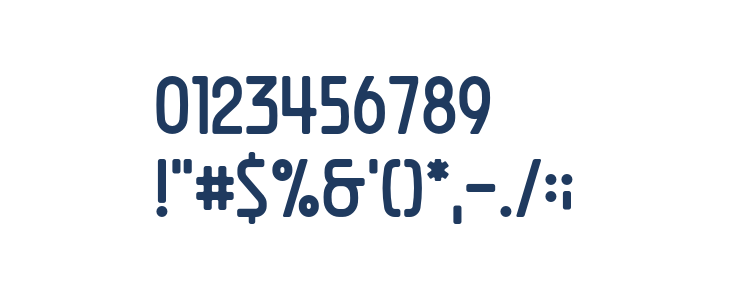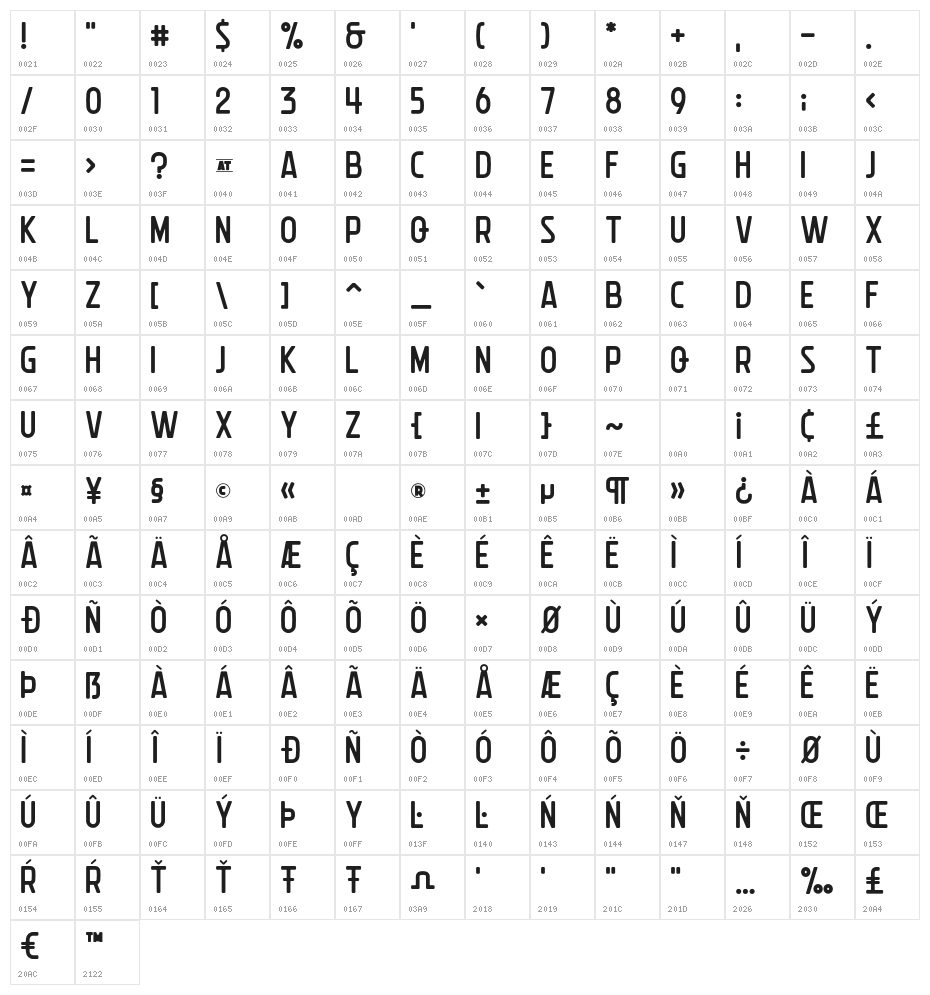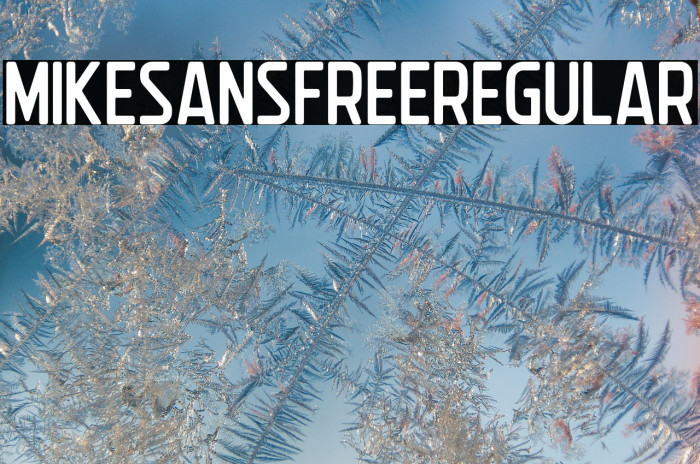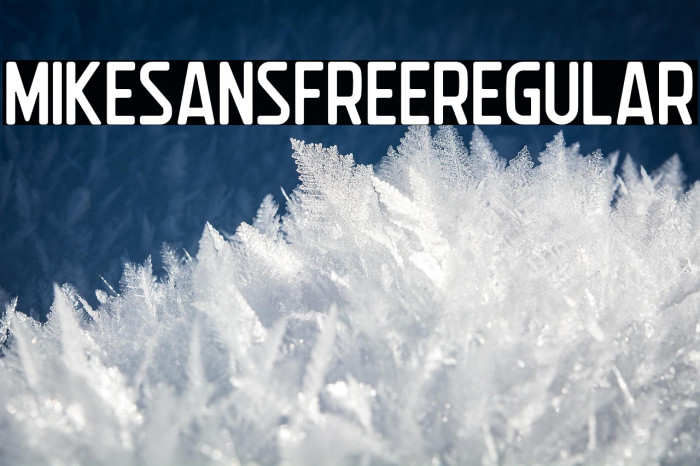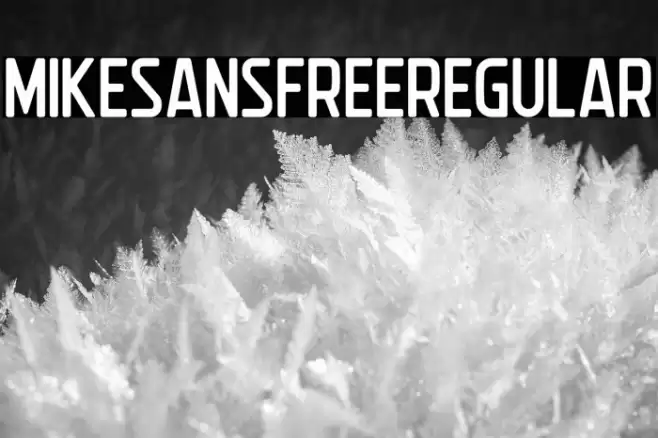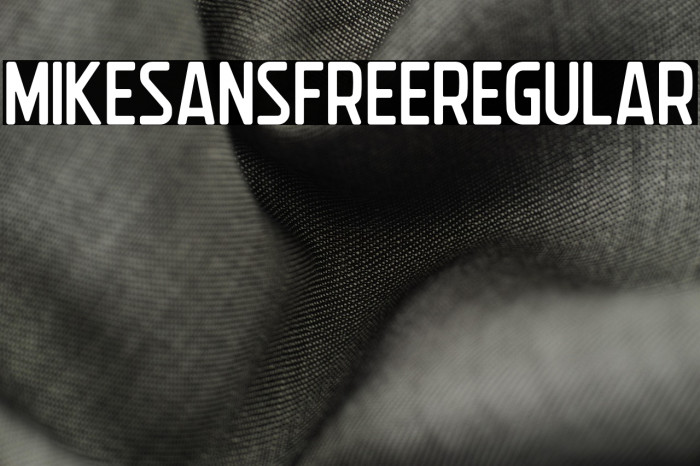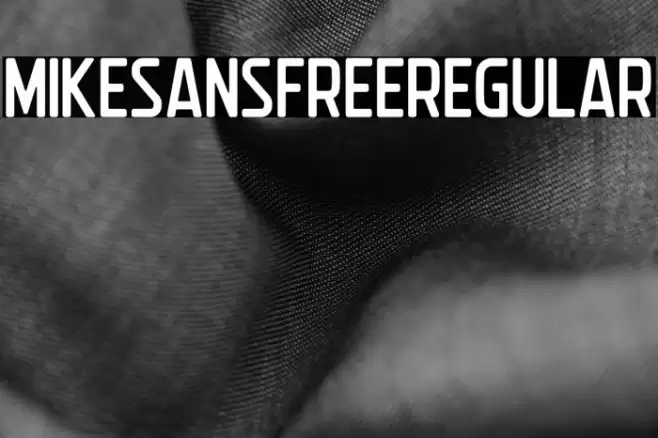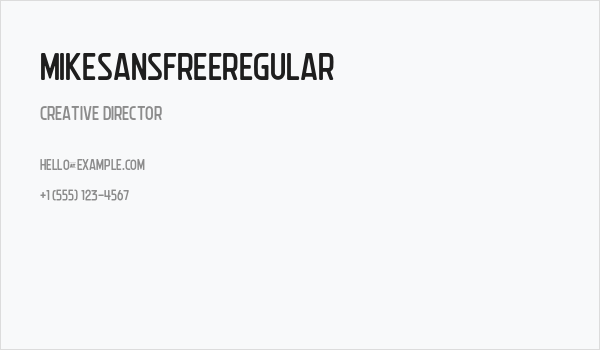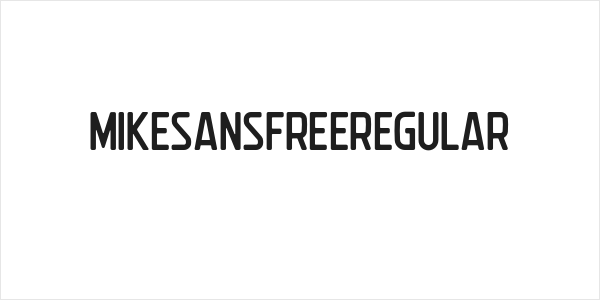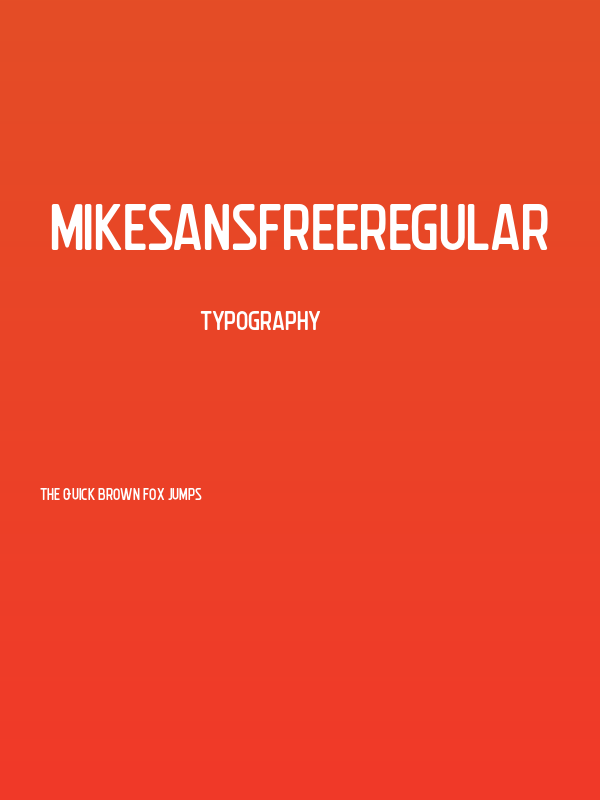
MikeSansFreeRegular Font
MikeSansFreeRegular Description
This font features a clean and modern sans-serif style with rounded edges and a uniform stroke width, giving it a friendly and approachable appearance. The characters are well-proportioned, with a slight geometric influence that adds to its contemporary feel. The uppercase and lowercase letters maintain a consistent height, while the numerals are clear and easily readable. The special characters are designed to blend seamlessly with the overall aesthetic, making it versatile for various uses.